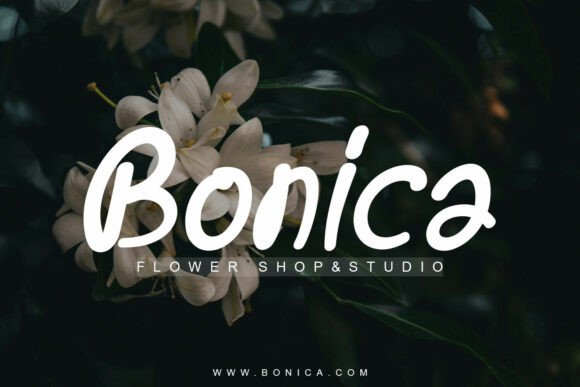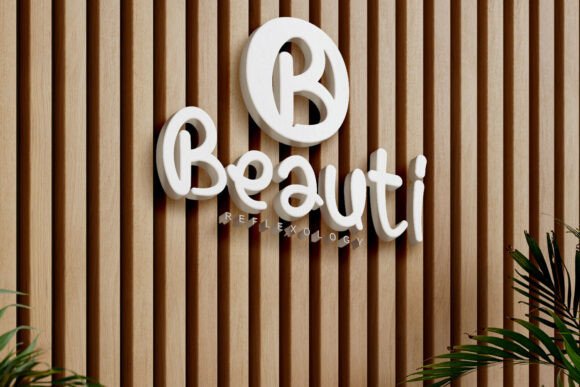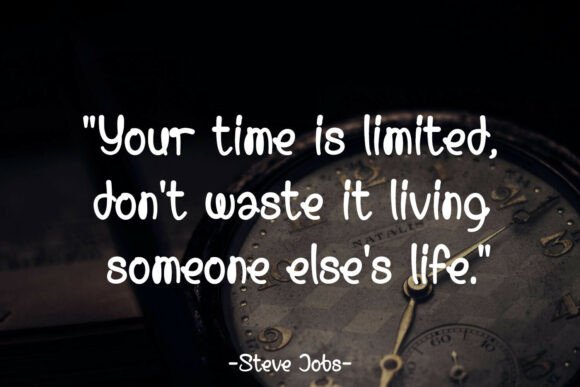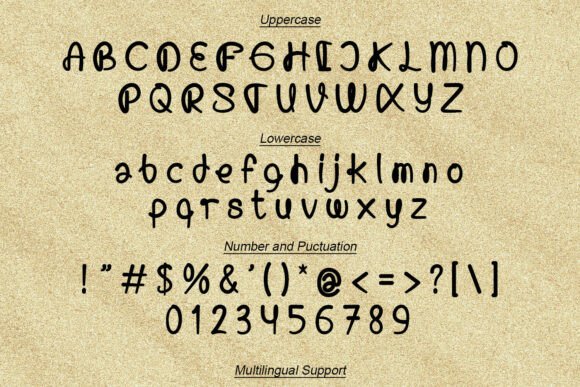
Introduction to Saloka Font
Bring a warm, lighthearted, and deeply human presence to your digital artwork with Saloka, a delightfully quirky hand-drawn display font.
Moving away from rigid geometry, this cheerful typeface features soft, uniformly rounded marker stems shaped with a lively visual bounce Its relaxed, organic line work and unexpected loop accents create an immediate look of down-to-earth honesty and casual fun.